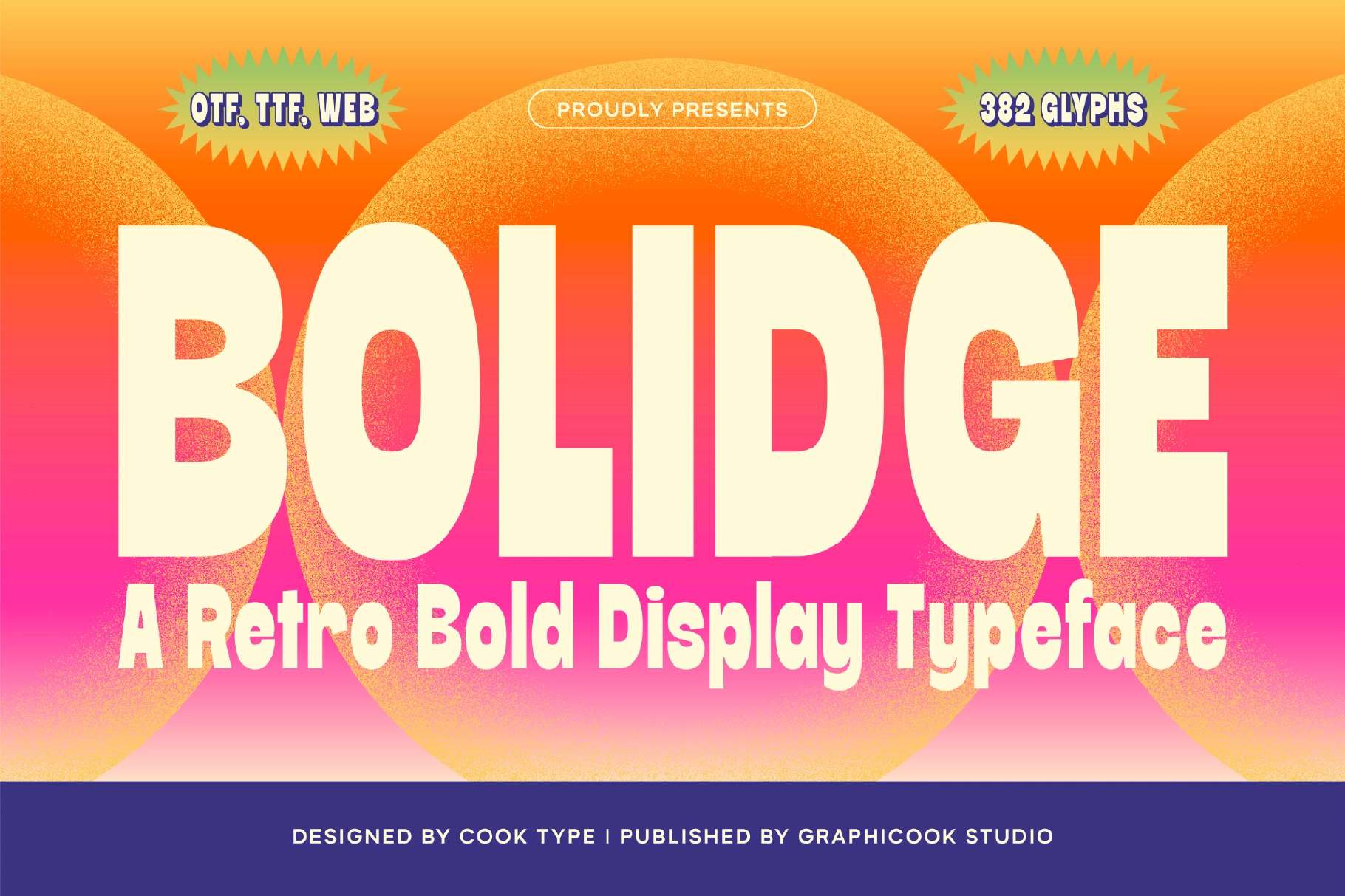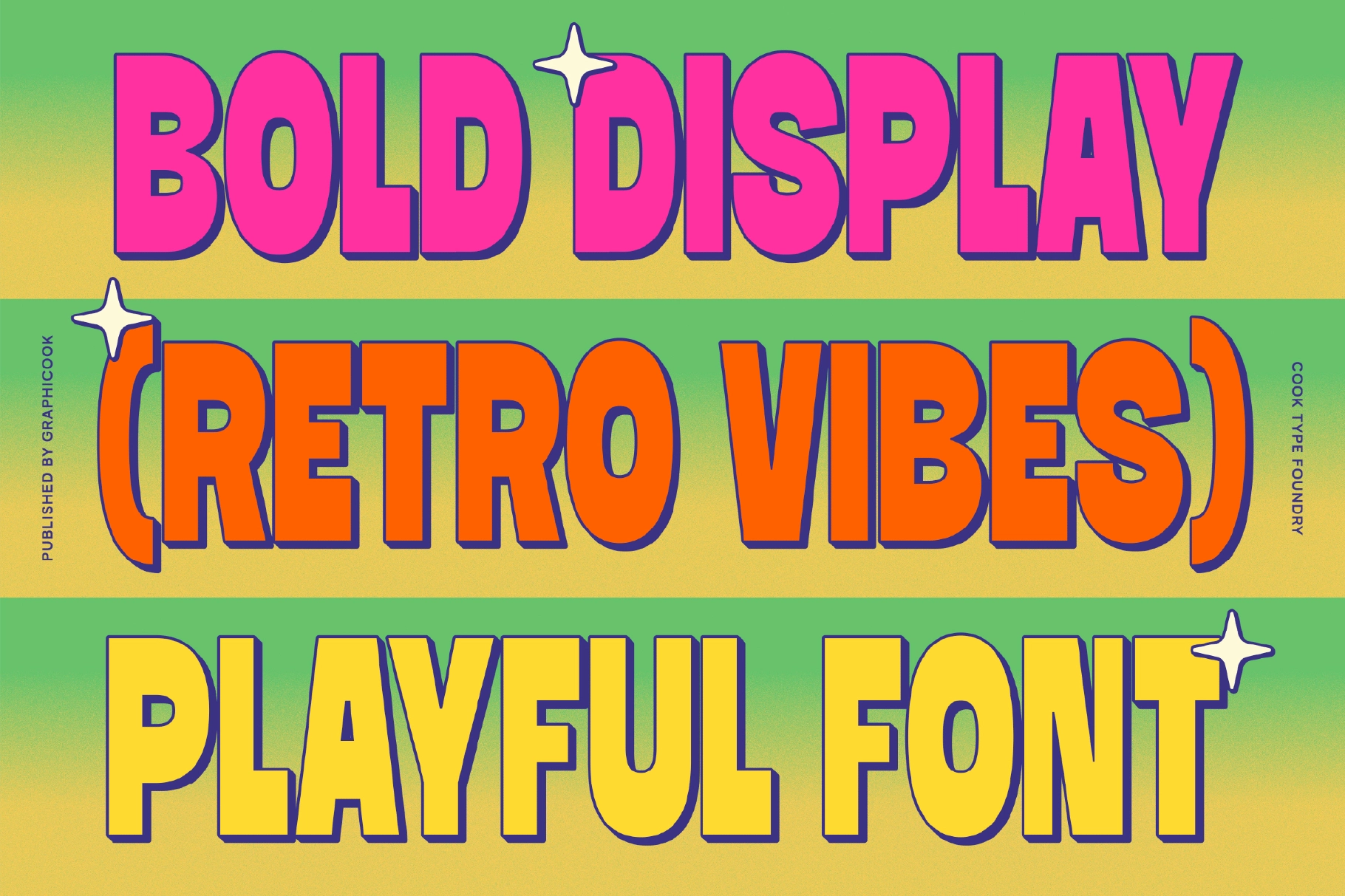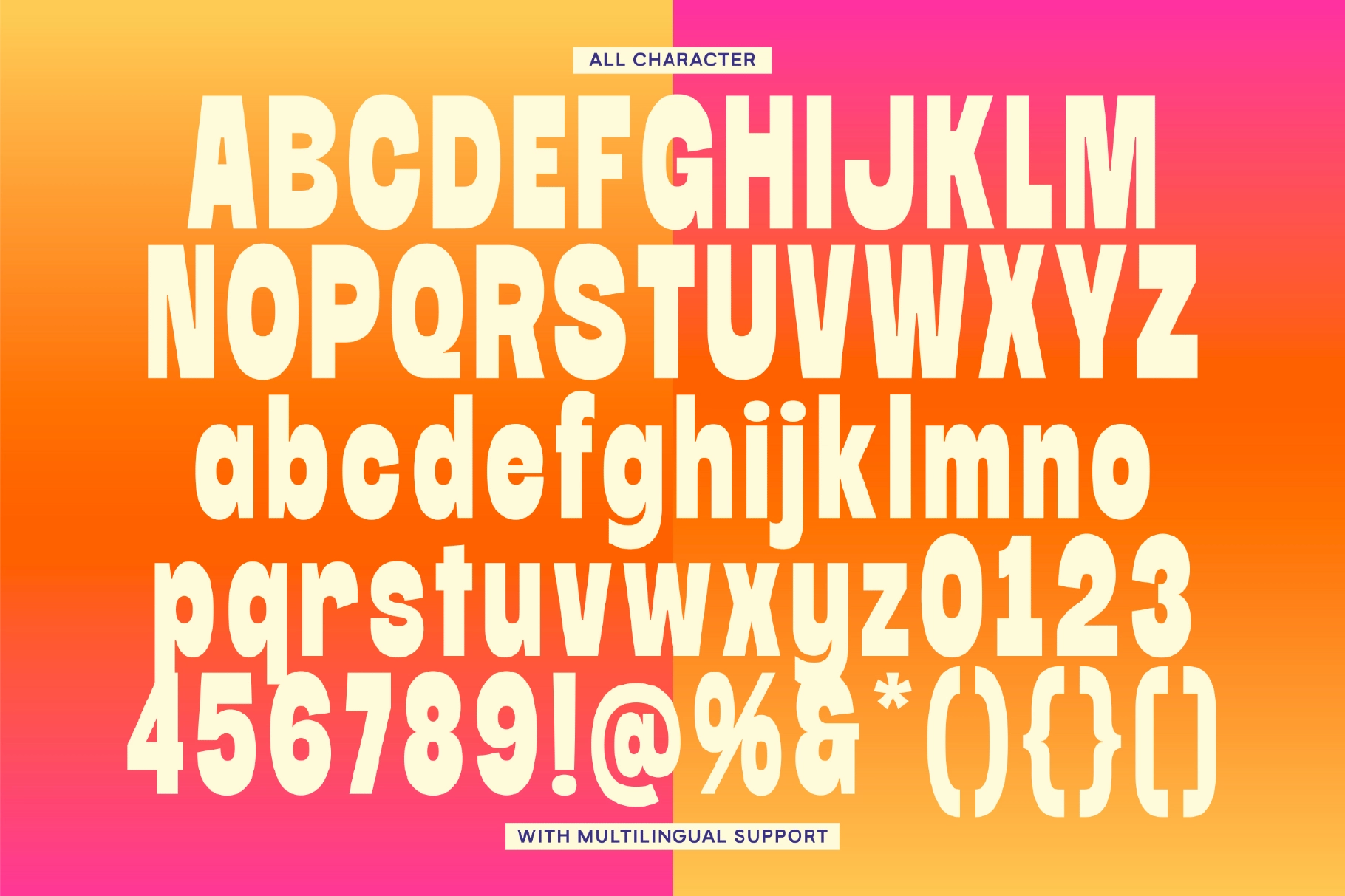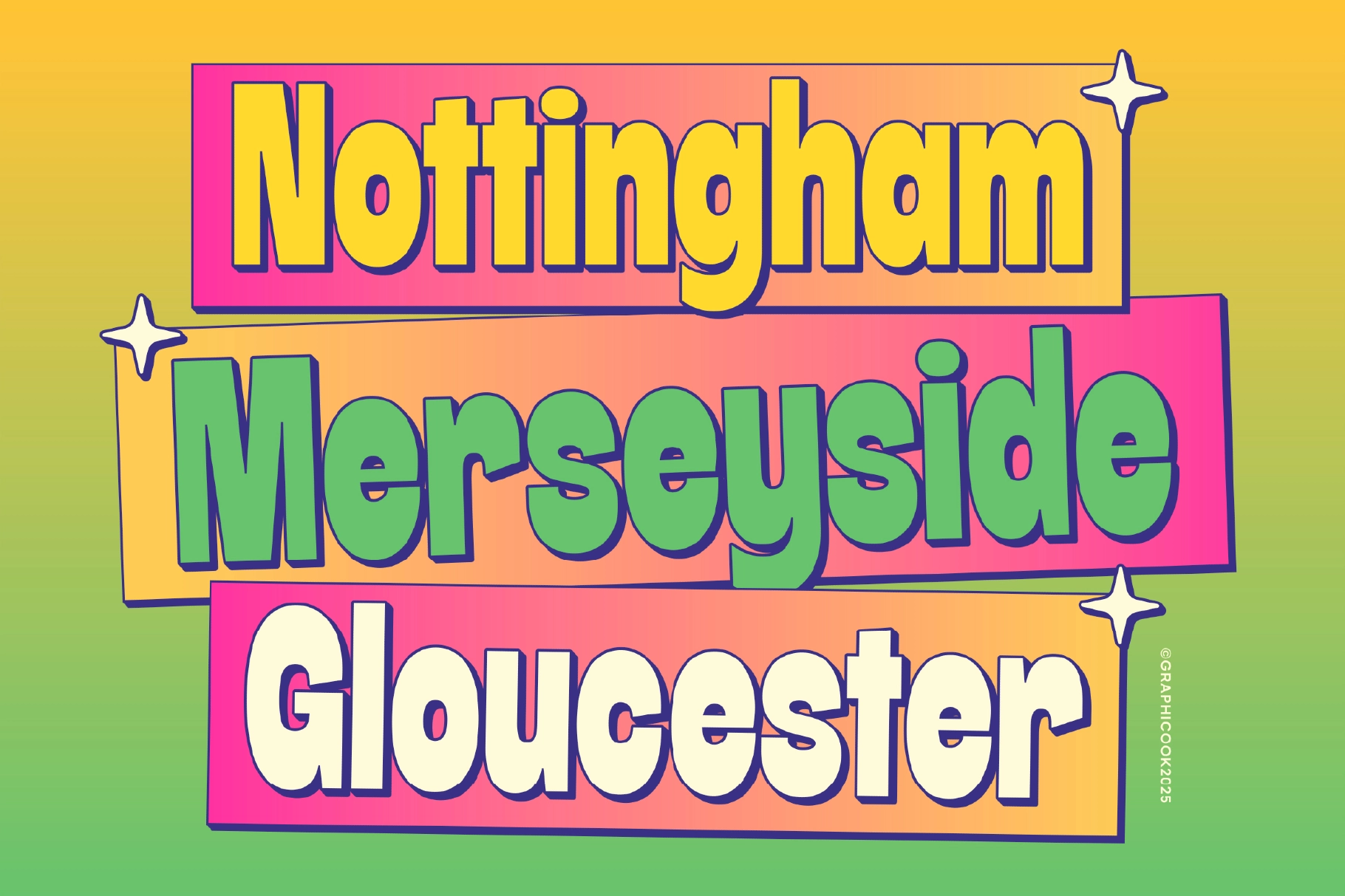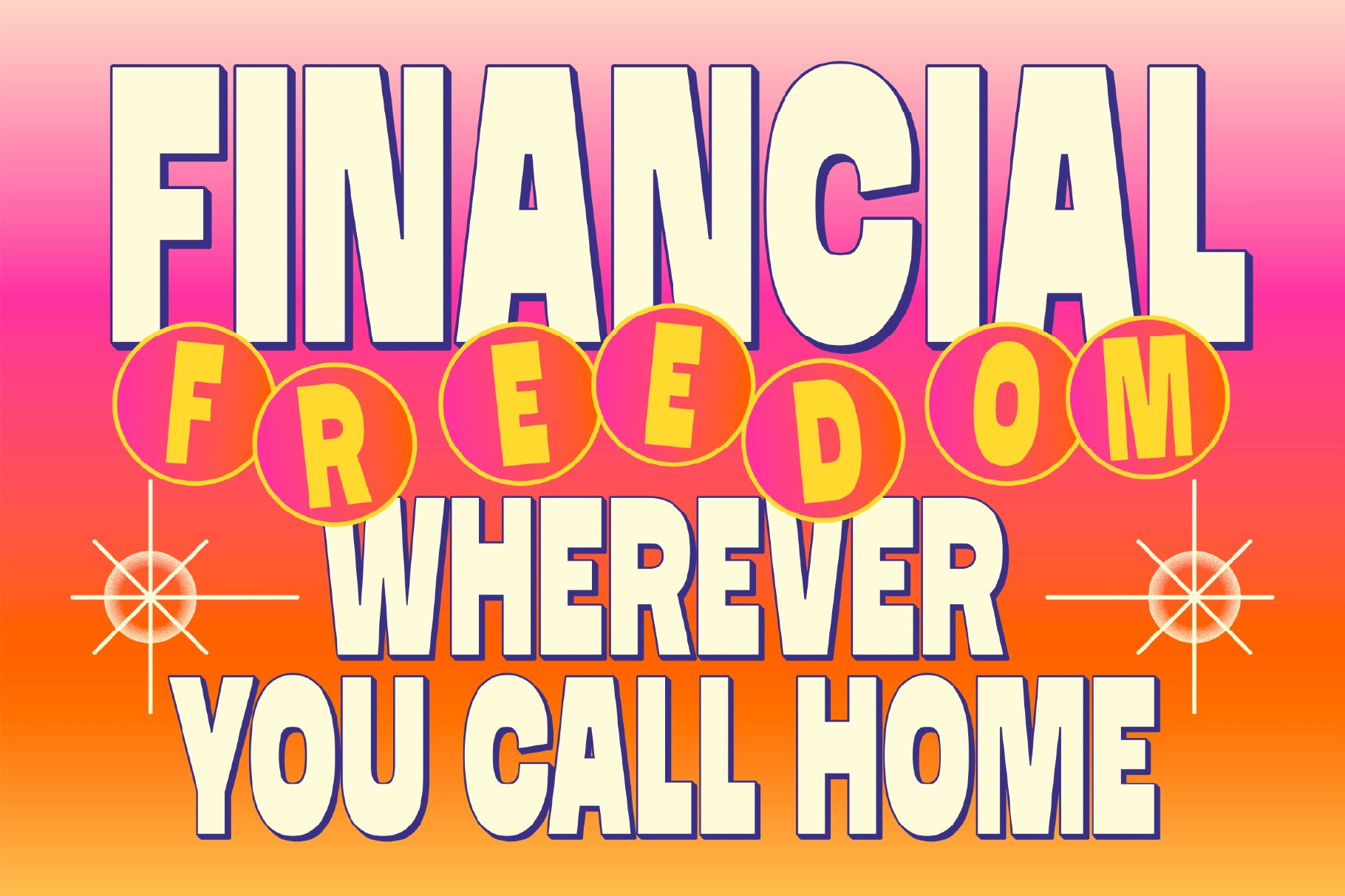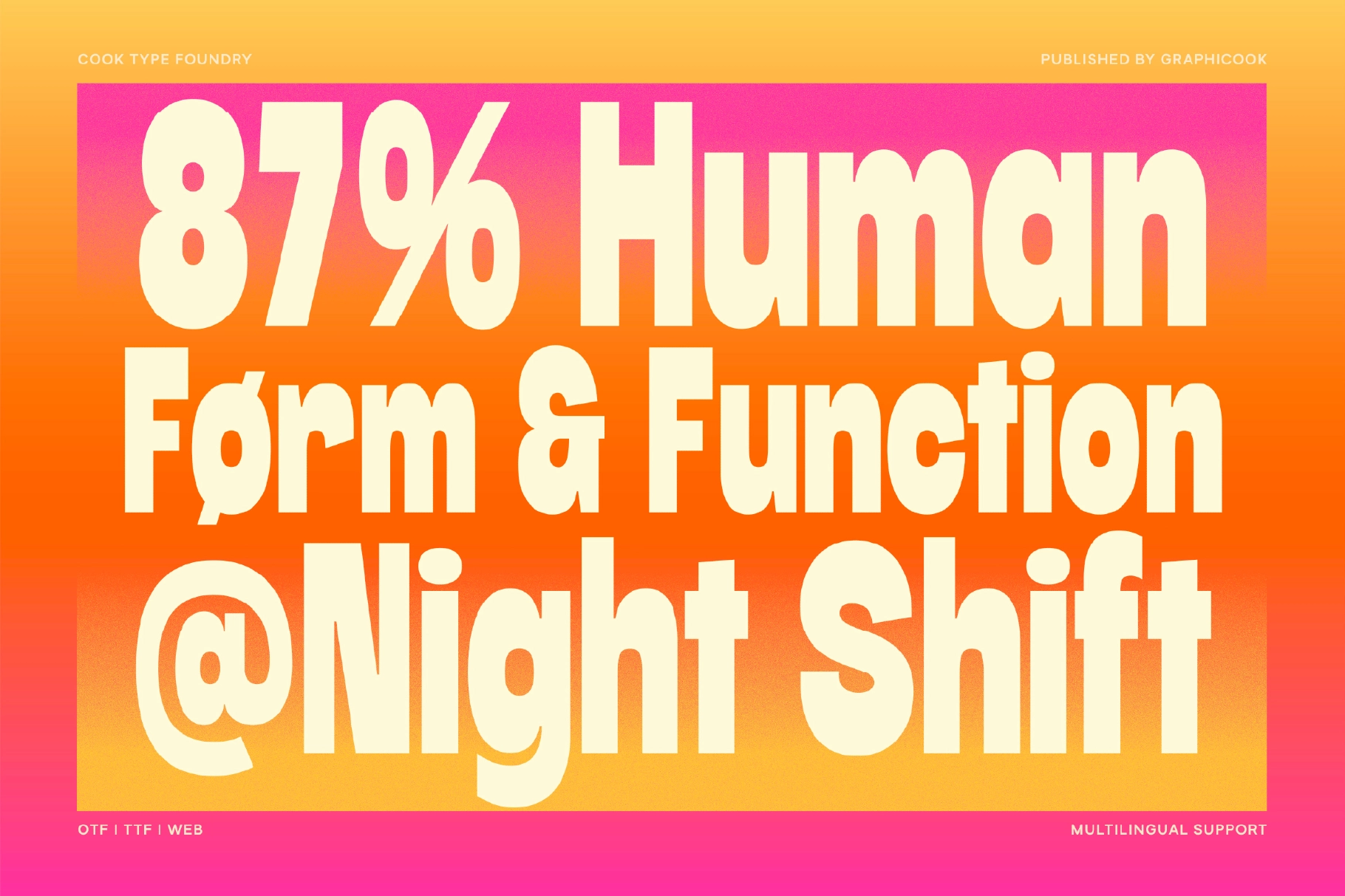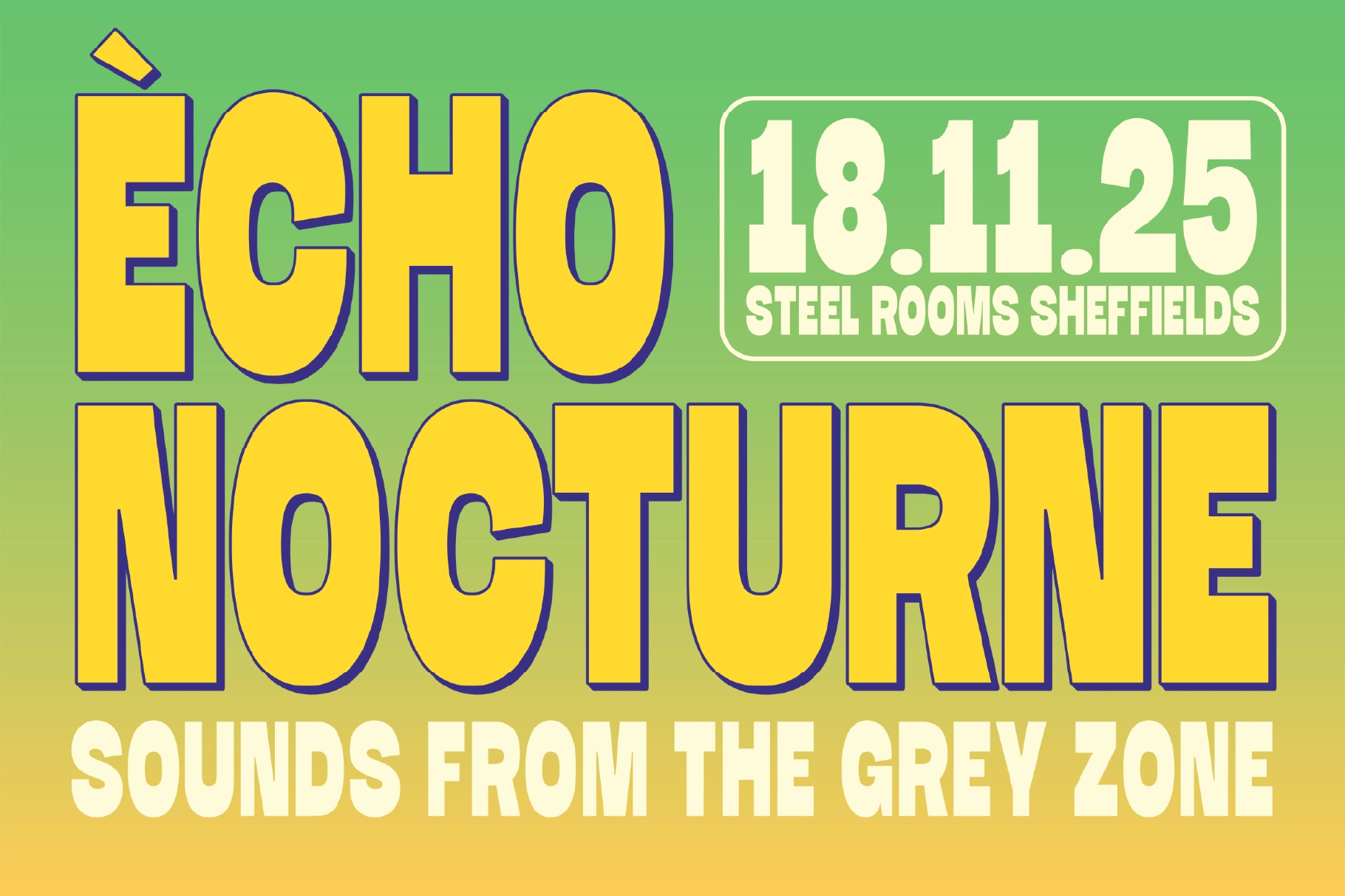
Bolidge Font
Bolidge
Bolidge is a bold display font infused with vintage charm, creating a striking and nostalgic look. Ideal for headlines, billboard banners, packaging, or any design that demands bold visual impact.